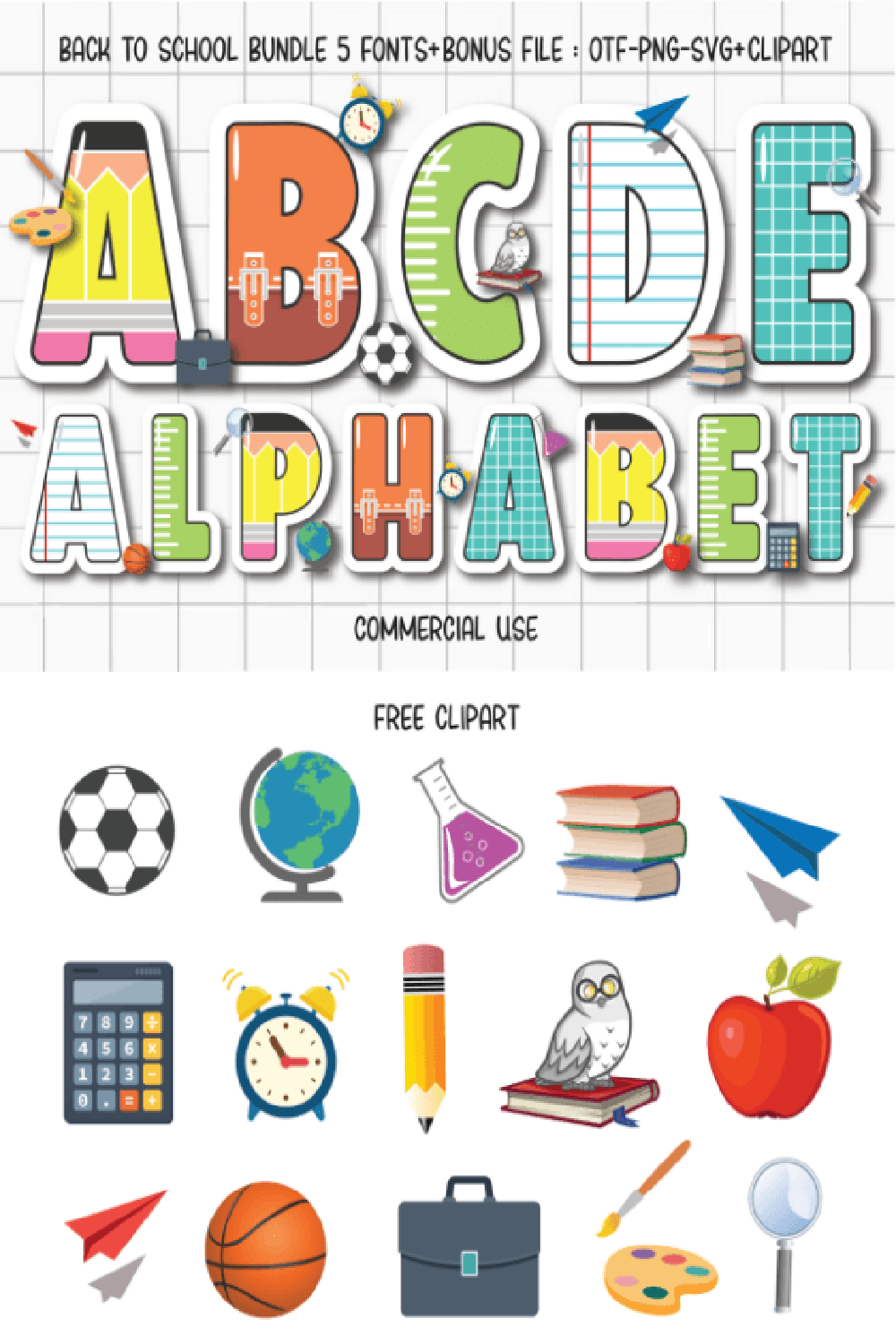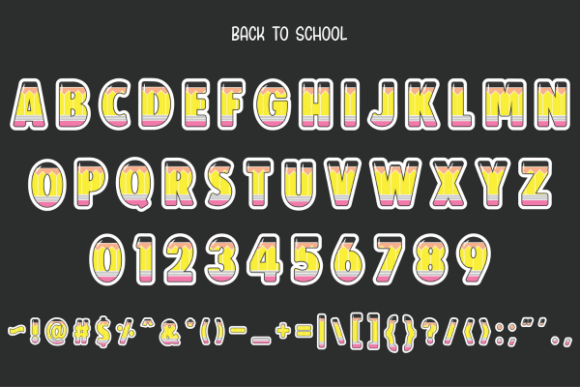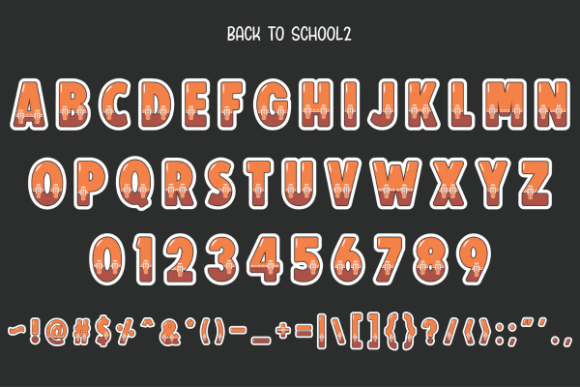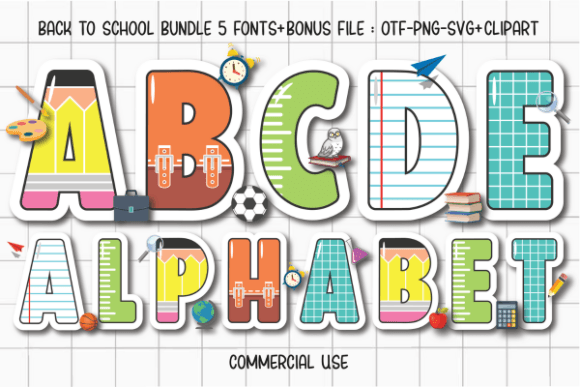
About the Back to School Font
Presenting Back to School Font, a unique and stylish typeface that will make your work stand out. Meet ‘Back to school,’ a remarkably bold font bursting with distinctive hues that captivate and charm. This extraordinary typeface sets its mark with a unique design, making it an unmatched choice for a spectrum of inventive projects. Its delightful allure makes ‘School’ a perfect fit for children’s entertainment and didactic themes, adding a playful and engaging ambiance to any design project. This robust, vivid typeface carries an irresistible allure that can elevate your designs from ordinary to extraordinary.
color version